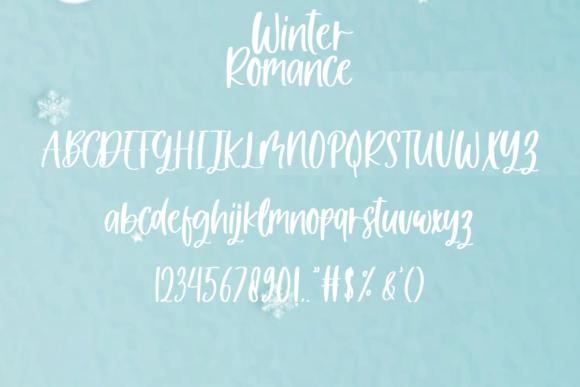
Winter Romance Font
Winter Romance is a sweet and cursive handwritten font. Whether you’re looking for fonts for Instagram or calligraphy scripts for DIY projects, this font will turn any creative idea into a true piece of art!